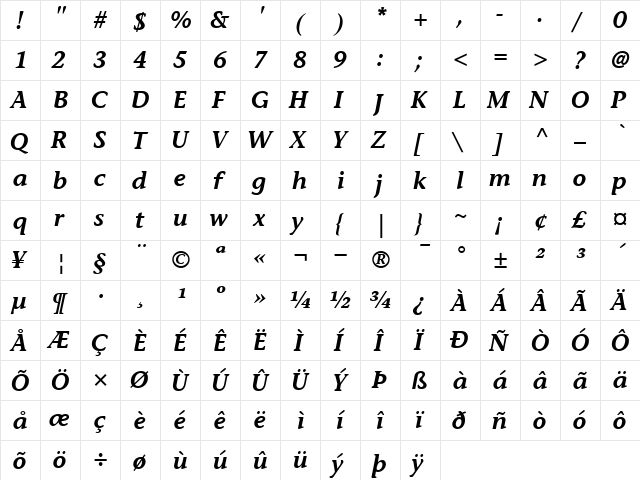
ITCStoneInformal-SemiBold Semi BoldItalic Font Preview
Design Context for ITCStoneInformal-SemiBold Typeface
ITCStoneInformal-SemiBold takes a measured approach to typography — its balanced proportions and neutral character make it a reliable workhorse for both digital and print work. Its italic angle brings a sense of urgency and motion to the letterforms. Its bold stroke weight gives it real presence on the page.
Pro Tip: Try ITCStoneInformal-SemiBold for annotation and caption copy alongside an upright companion — the contrast in angle creates a dynamic but ordered typographic system.